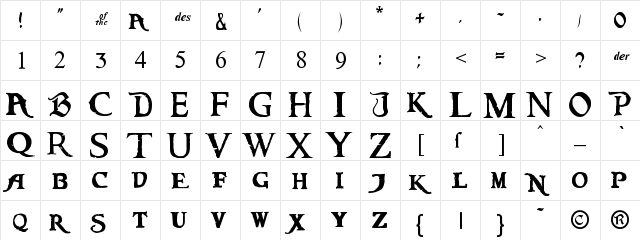
Caribbean Regular
Design Context for Caribbean Typeface
Caribbean is a composed and adaptable typeface that performs quietly and consistently across a wide range of design contexts.